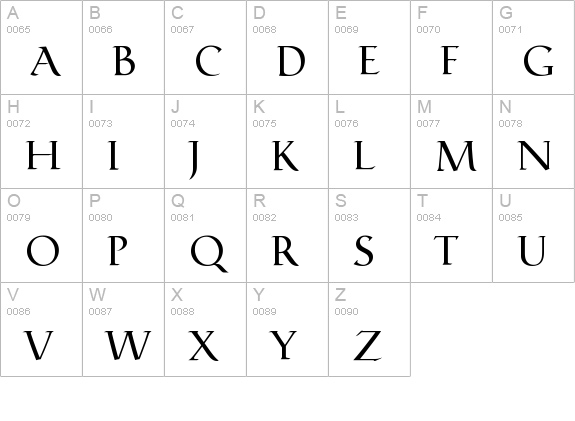
Catull Regular Font Details
Catull Regular is the standard, neutral variant in the Catull typeface family \xE2\x80\x94 well suited to general body text, paragraphs, and standard typographic work.
Catull Regular is a versatile and elegant font that exudes sophistication and modernity. With its clean lines and classic design, Catull Regular is perfect for a wide range of uses, from branding and advertising to editorial and web design. This font strikes the perfect balance between professionalism and creativity, making it a popular choice among designers and creatives. What sets Catull Regular apart is its versatility and readability, making it suitable for both body text and headlines. The smooth curves and balanced proportions give this font a timeless appeal that is sure to enhance any project it is used in. Best of all, Catull Regular is available for free download at FontsMarket.com, making it accessible to anyone looking to add a touch of sophistication to their designs. Whether you're a seasoned designer or just starting out, Catull Regular is a must-have font in your collection.